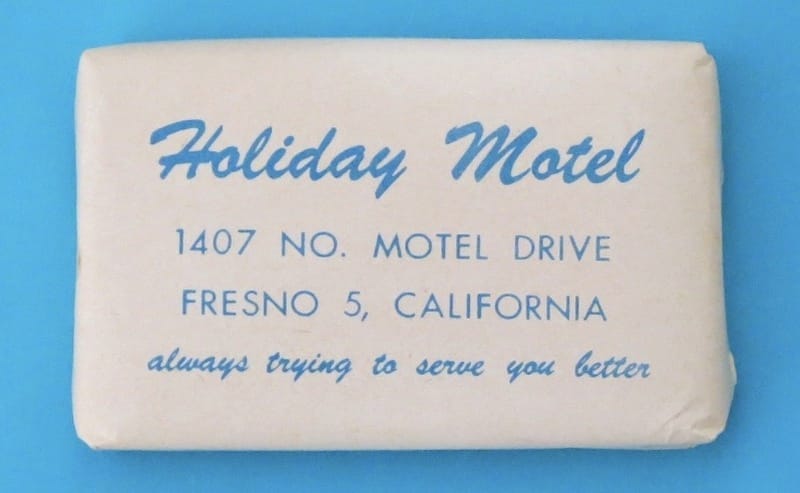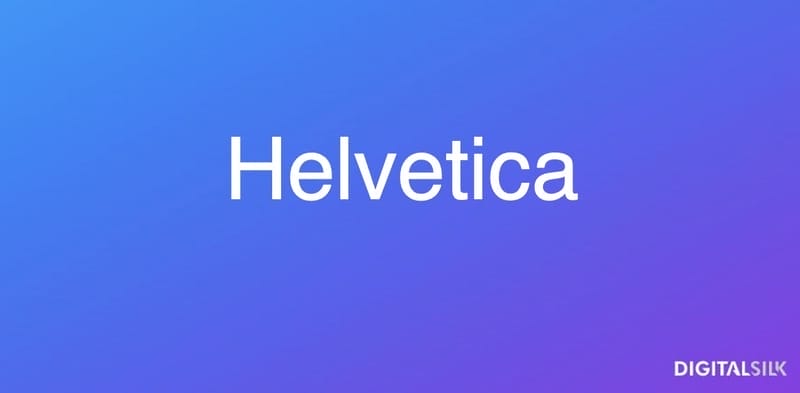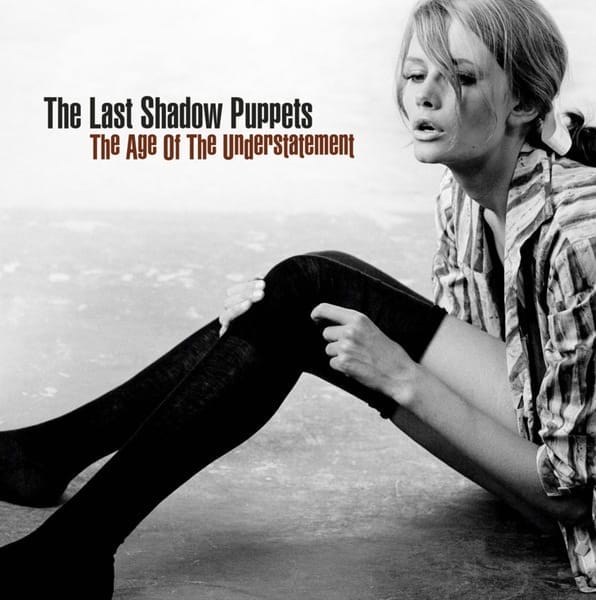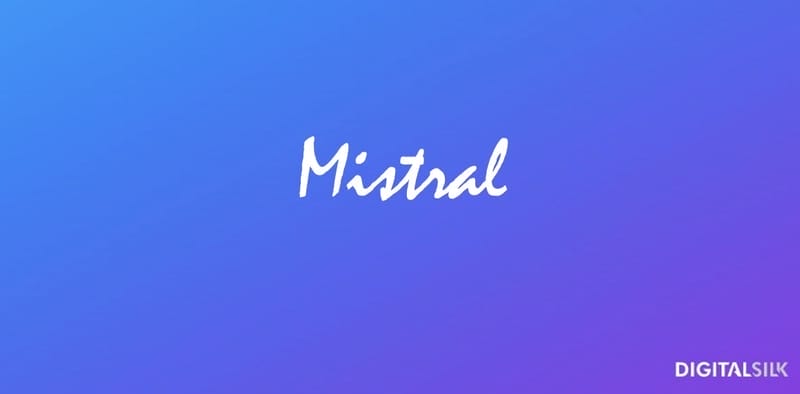
Typography can make or break a brand. Here are the 15 most hated fonts you should avoid to build a successful business.
Fonts are much more than a means of written communication.
In fact, typography is an essential part of graphic and custom website design.
Choosing the right font gives a project its unique character and personality.
Throughout history, some typefaces became more popular than others, while others earned a bad reputation for certain reasons.
In this article, we’ll analyze the 15 most hated fonts of all time and examine the reasons behind their unpopularity.
Let’s dive in.
The 15 Most Disliked Fonts
Now, let’s delve into the 15 most universally disliked fonts and uncover the reasons behind their widespread disdain.
1. Comic Sans
Comic Sans MS, a.k.a., Comic Sans, is, arguably, the least liked font of them all.
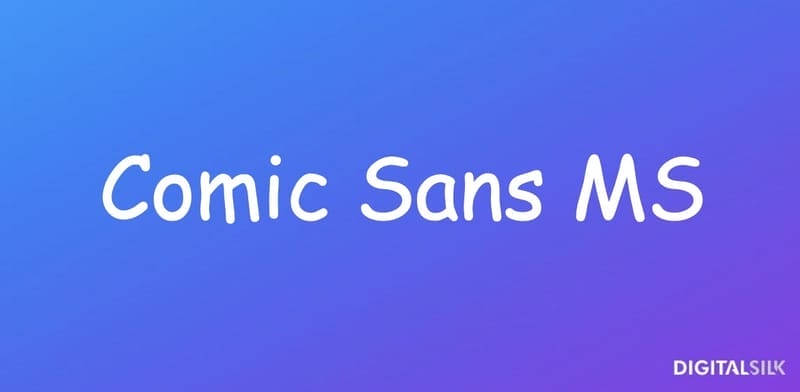
This sans-serif typeface was designed by Vincent Connare in the early 1990s. He was asked to create a typeface for Microsoft Bob —Microsoft’s new user-friendly interface created to appeal to a young audience.
Microsoft Bob featured an assistant dog named Rover, who was there to help users navigate the program. Rover had speech bubbles appear above his head, and the text was initially written using Times New Roman. Connare did’nt like that.
Inspired by Watchmen and Batman comics, he created a fun typeface that he modeled after the typography in comic books.
Comic Sans wasn’t used in Rover’s speech bubbles, but it was, in fact, included with Windows 95.
From there, the font found its way into pretty much everything, including school papers, video games, commercials, advertisements and restaurant menus.
Comic Sans was overused and, more importantly, misused, and people, sadly, got tired of seeing it everywhere.
A playful font doesn’t fit a company that offers, for instance, funeral services:
But the thing is, Comic Sans is a highly legible font and it’s recommended for use in schools.
It’s even referred to as the dyslexia-friendly font, which means its open, simple letterforms and consistent spacing make it easier for individuals with dyslexia to distinguish characters, reducing reading errors and eye strain.
Alas, it seems that the universal hatred for the font is here to stay, earning Comic Sans a spot on our list.
2. Papyrus
The Papyrus typeface was created in 1982 by Chris Costello, an American designer.
Costello was reading the Bible at the time, and he got the idea to design a font the way he imagined typefaces looked like in the biblical Middle East.
The result of his work is Papyrus.
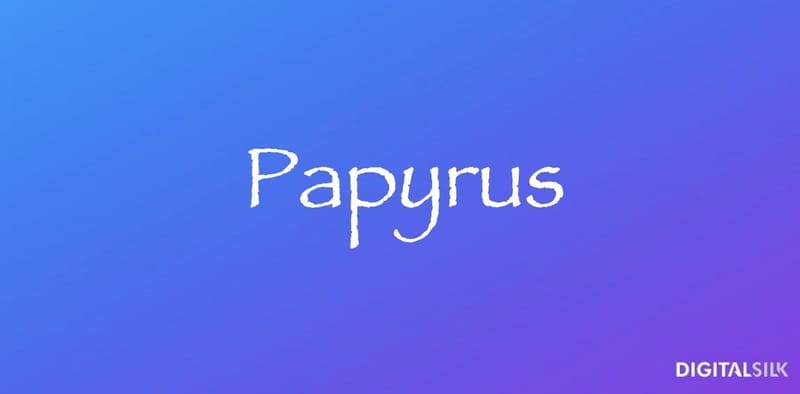
The biggest problem with Papyrus is similar to that of Comic Sans — this font is also misused and, well, overused.
The font was bundled in Microsoft, and it exploded in the 1990s.
But despite its initial popularity, the font is now widely unpopular.
So much so, that they made a sketch about it on Saturday Night Live starring Ryan Gosling:
Twice:
As Gosling points out, using Papyrus even in subtitles is a tad too much.
This isn’t a subtle font and seeing it overused in various, modern-day contexts can be tiring for the audience.
3. Arial
The Arial typeface was created in 1982 by Patricia Saunders and Robin Nicholas.
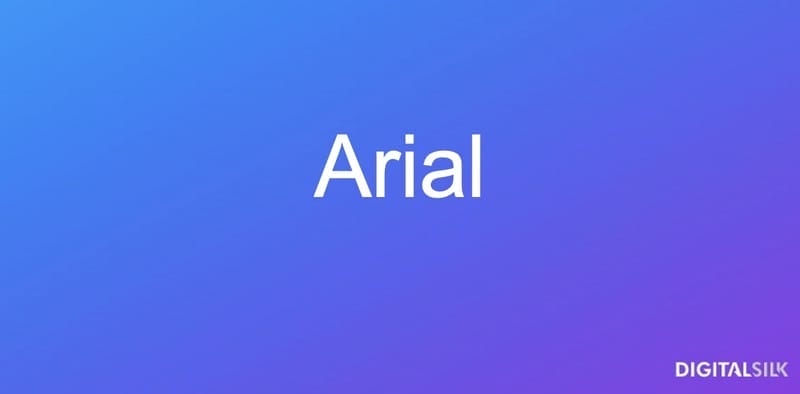
It used to be Microsoft’s default typeface, but that changed in 2007 when it was replaced with Calibri.
Arial has a clean and simple design, so why don’t people like it?
Well, the fact that the font has no flavor seems to be a problem.
Generic and omnipresent fonts aren’t unique, so they can’t catch people’s attention.
Also, one of the things that many seem to mind about the Arial typeface is its similarity to Helvetica.
After all, Arial was created to be metrically compatible with Helvetica to avoid license fees, which adds to Arial’s negative perception.
Singer Charlie XCX used Arial on the cover of her latest album.
She described the brat album as confrontational and the choice of the Arial font for the cover seems to complement the album’s nature.
4. Times New Roman
In 1931, the British newspaper The Times commissioned typographer Stanley Morison and graphic artist Victor Lardent to create a new typeface to replace their old one.
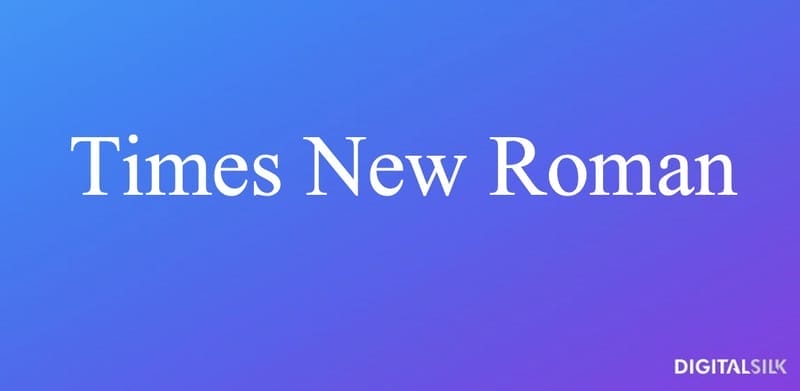
They created a recognizable serif typeface that spread beyond The Times and became a standard for books.
Times New Roman has a traditional design and as such can look outdated compared to contemporary typefaces.
Since this font is predominantly used in academic papers, legal docs and some books, some often associate it with dry content and view it as a vanilla font.
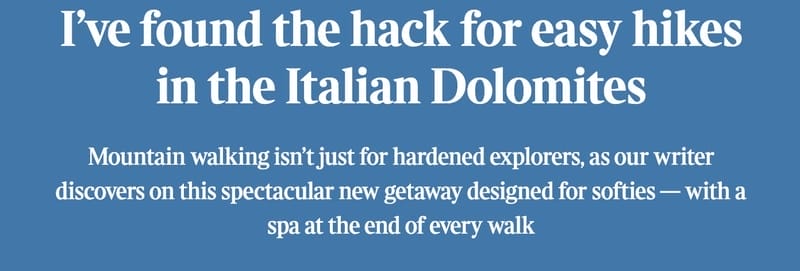
5. Brush Script
As its name suggests, the Brush Script typography looks as if it were written with a brush.
In 1942, Robert E. Smith designed this font with the desire to mimic the look of handwritten letters.
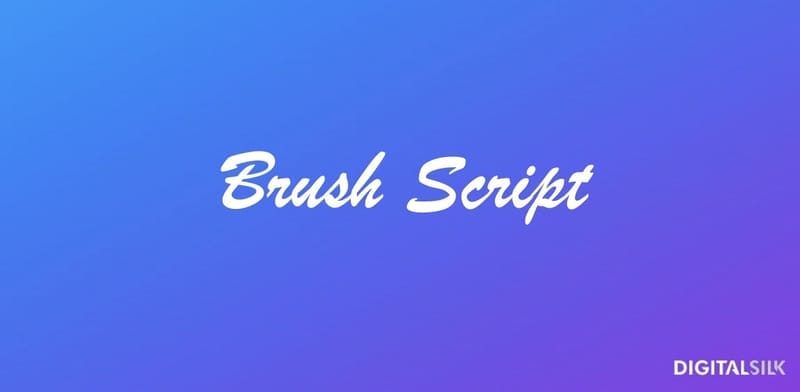
The Brush Script font has a retro feel, and so it has been used a lot in vintage designs.